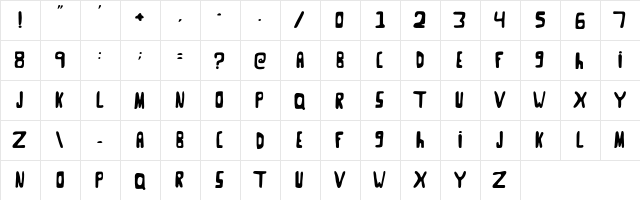
Goose Neck Regular
| Foundry | bionictype |
| Designer | Johnw |
Design Context for Goose Neck Typeface
Goose Neck takes a measured approach to typography — its balanced proportions and neutral character make it a reliable workhorse for both digital and print work.